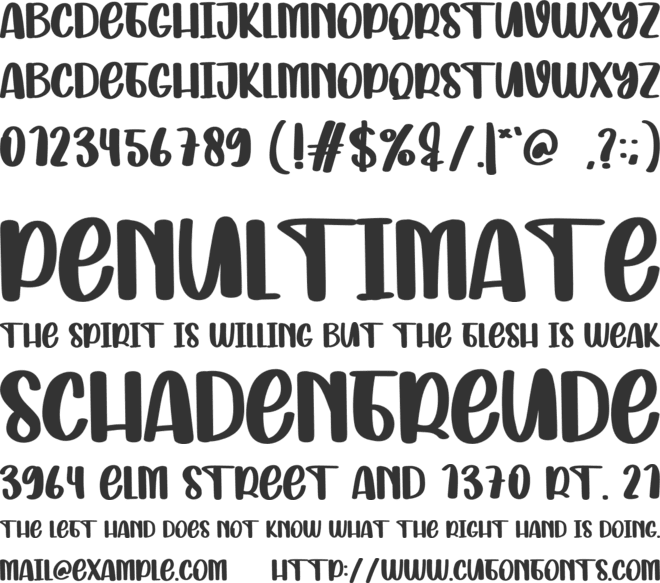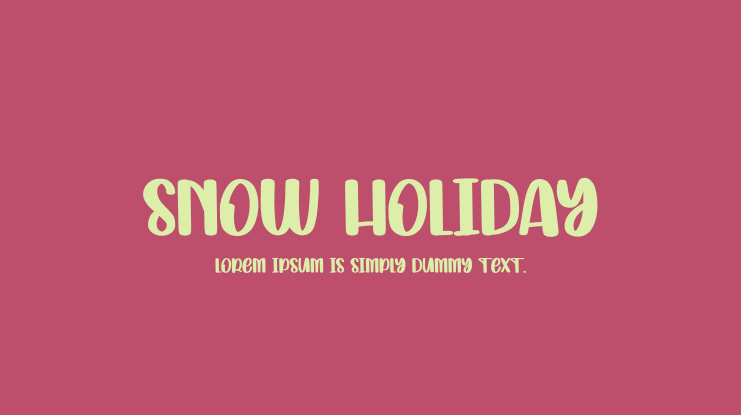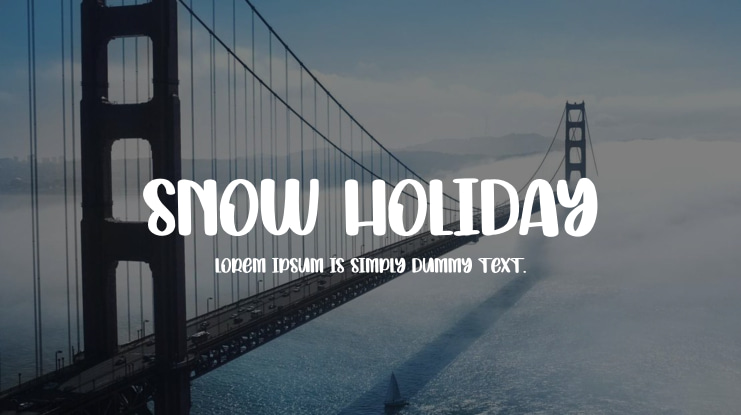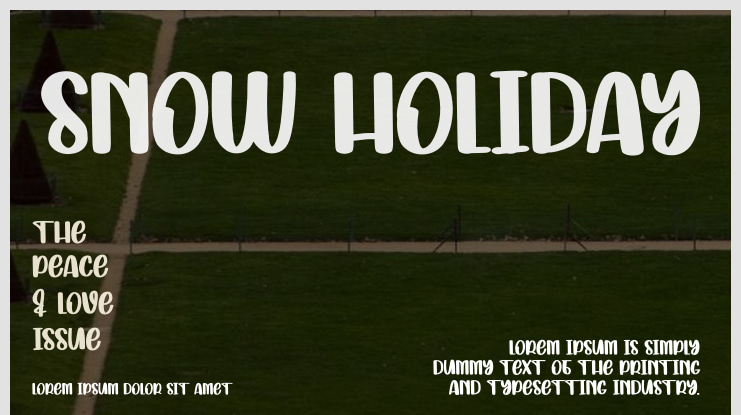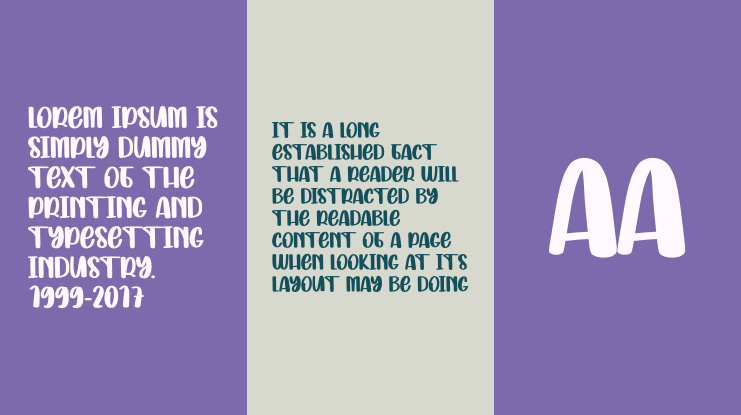
Our collection features the latest in stylish letter designs, perfect for various purposes such as wall displays, wedding invitations, logos for social media posts, advertisements, product packaging, labels, photography, watermarks, invitations, stationery, and any project that requires elegant handwriting.